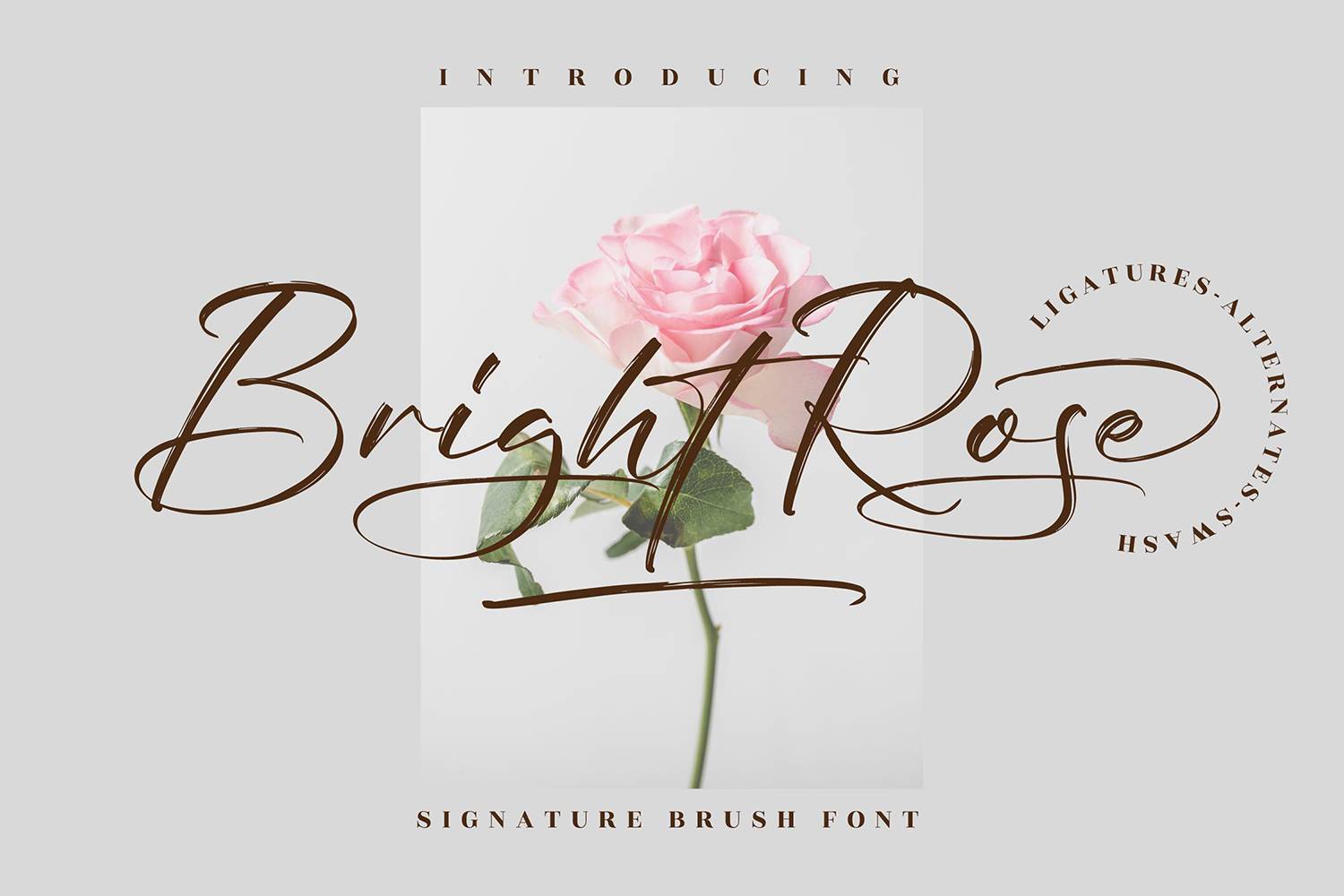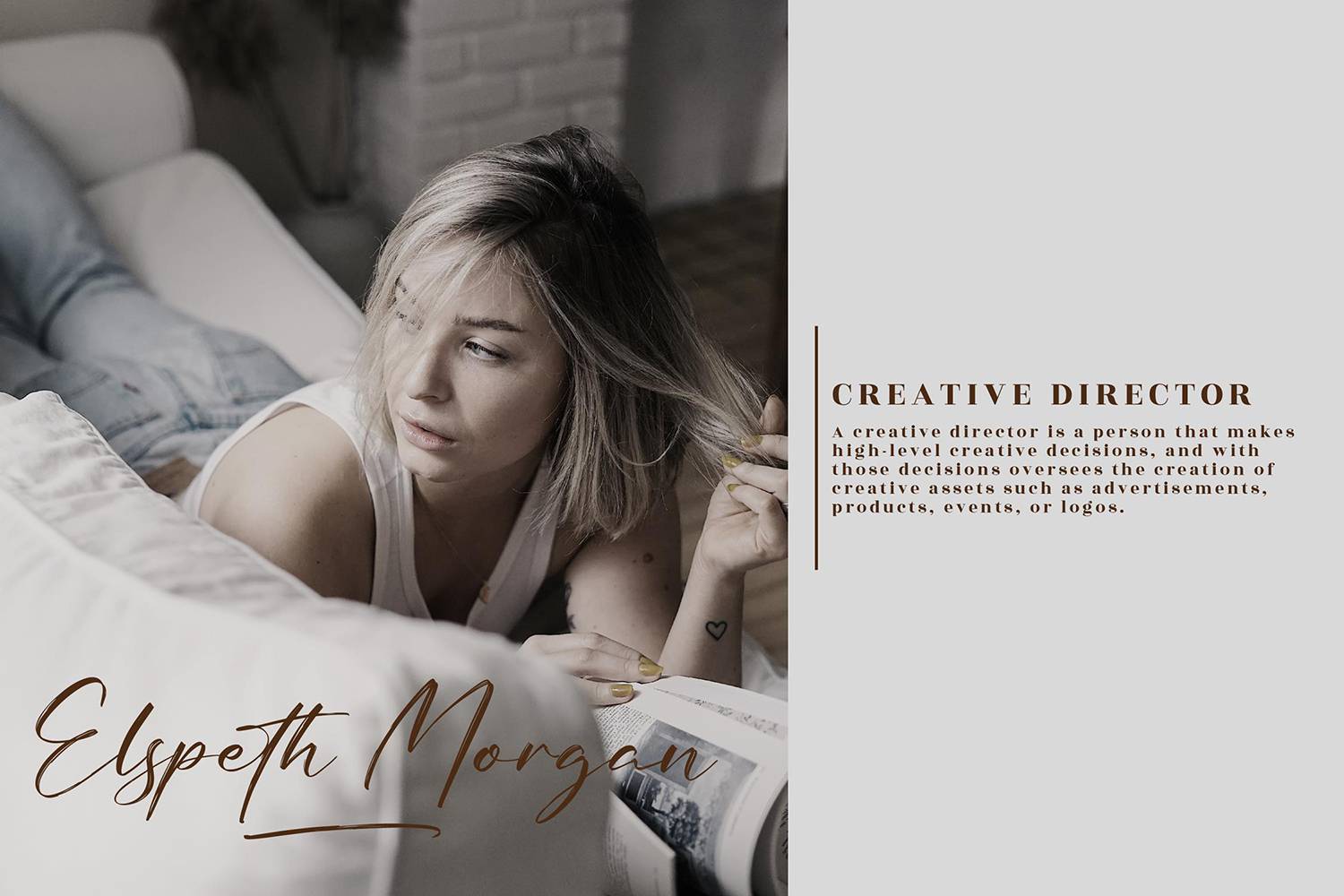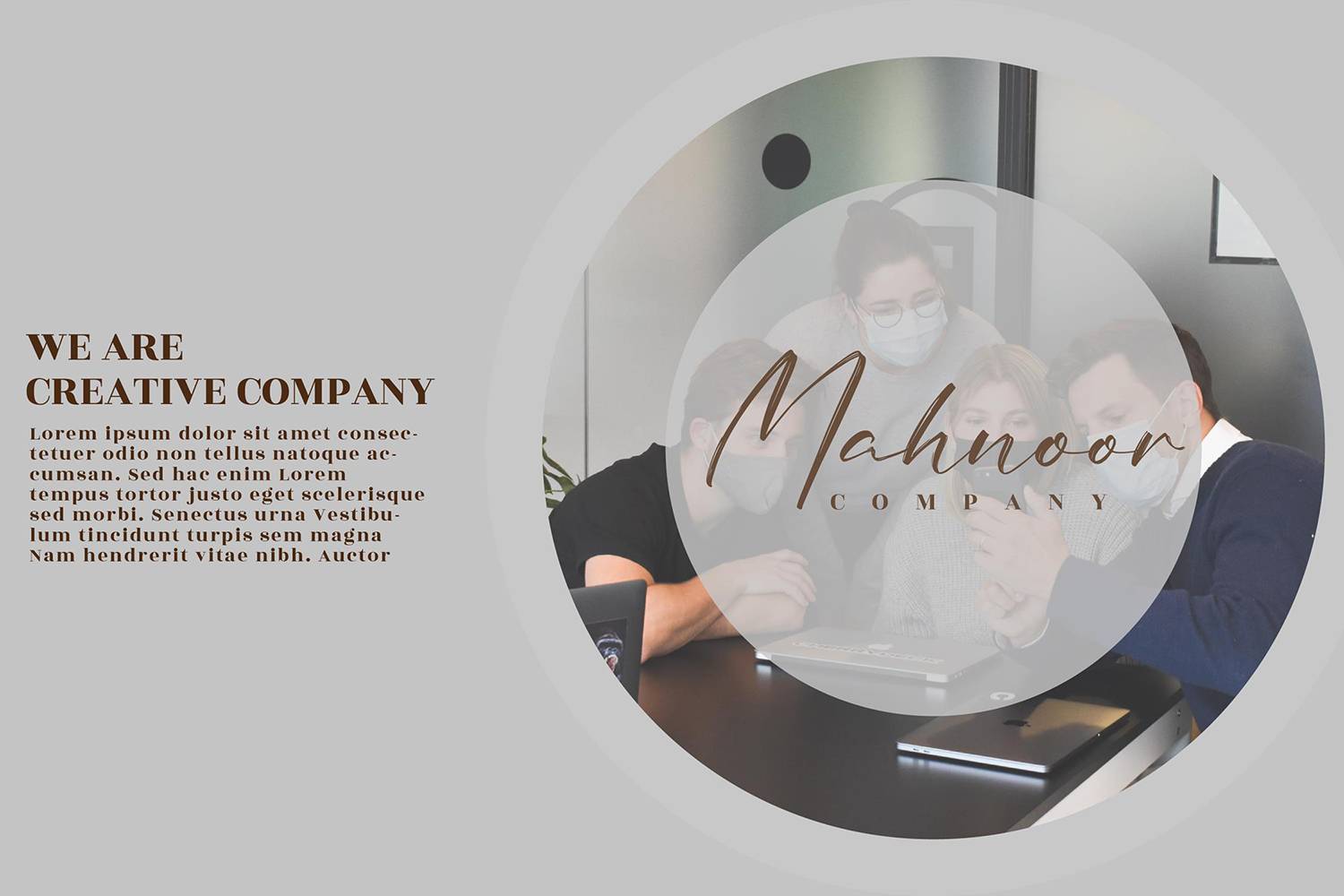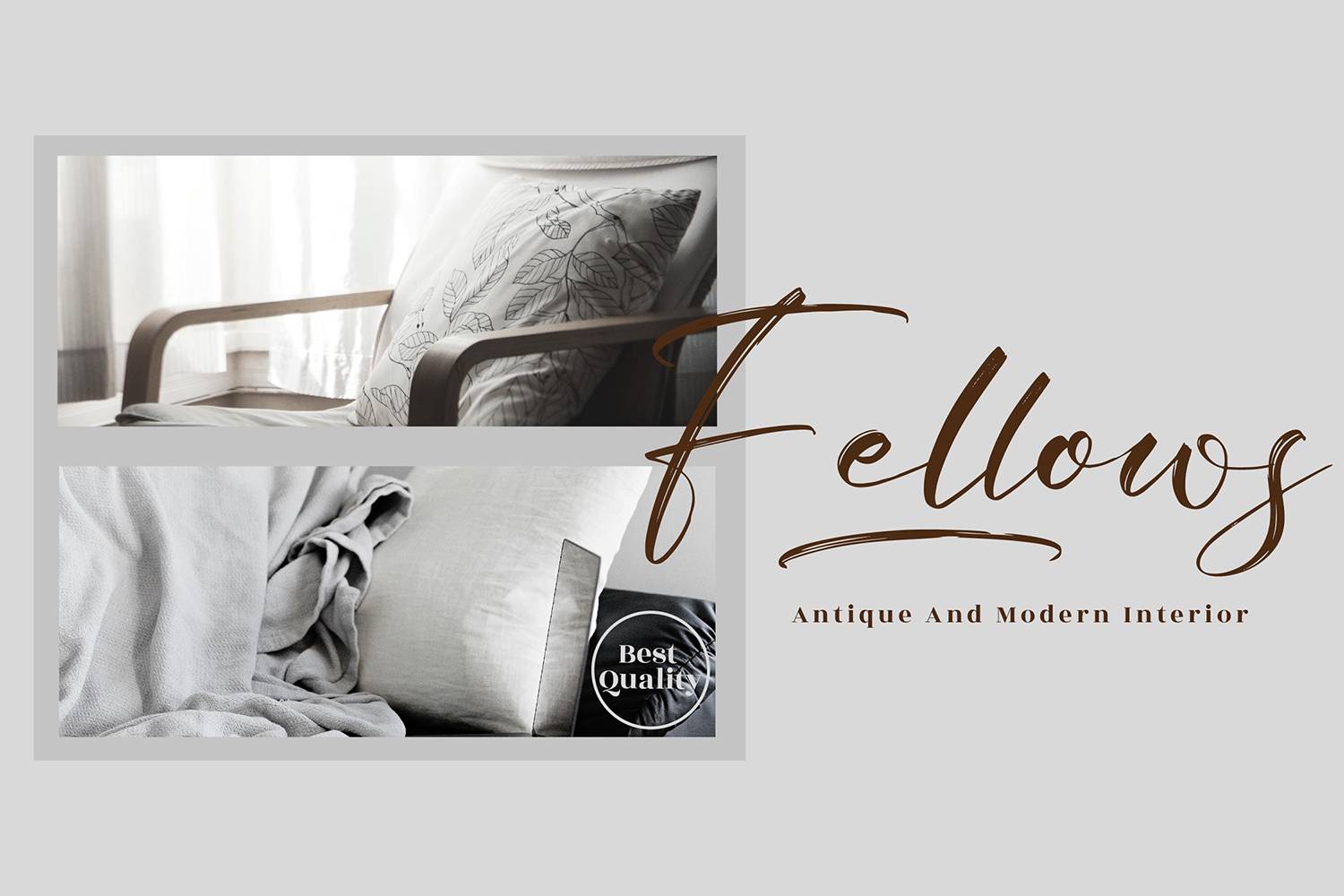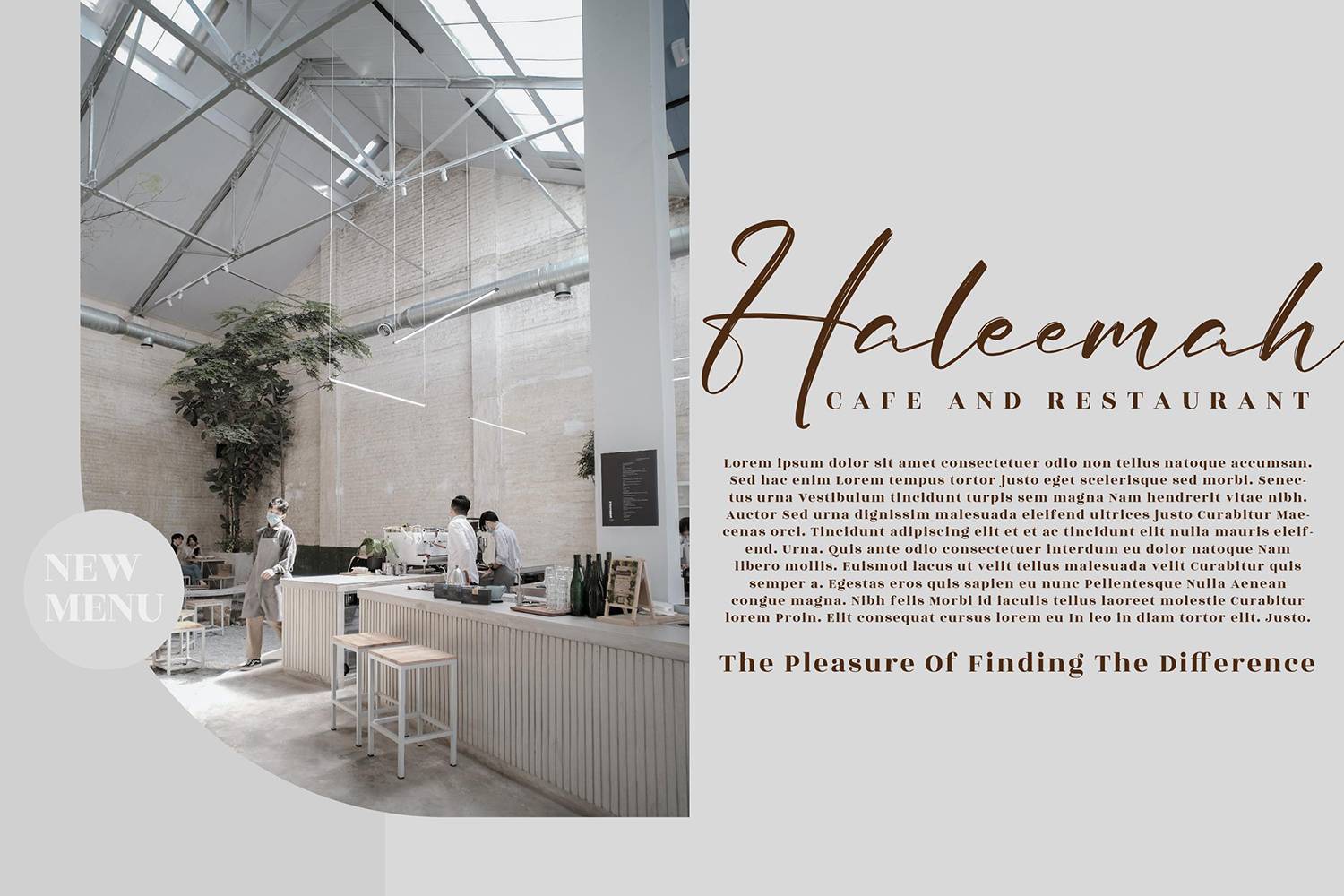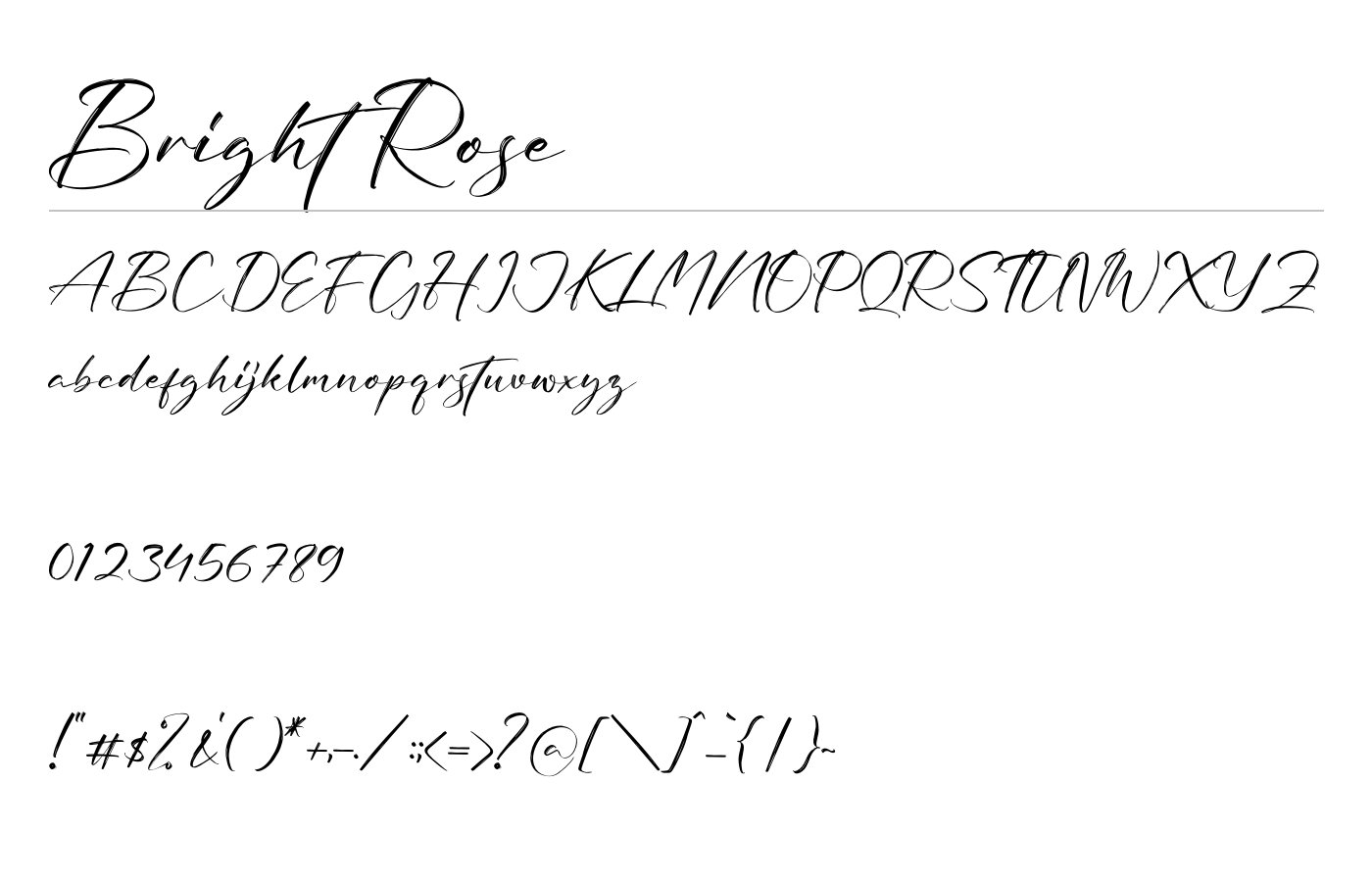
Bright Rose is a delicate and elegant script font with a handwritten feel, featuring graceful, flowing strokes and a refined, airy structure. Its thin, slightly textured lines and stylish letterforms evoke a sense of sophistication and charm, making it ideal for fashion branding, wedding invitations, and other creative projects that seek a personal and upscale touch. This font works beautifully in settings where elegance and a modern, feminine vibe are desired, especially in headlines, logos, and decorative text.
Bright Rose Font
About Bright Rose Font